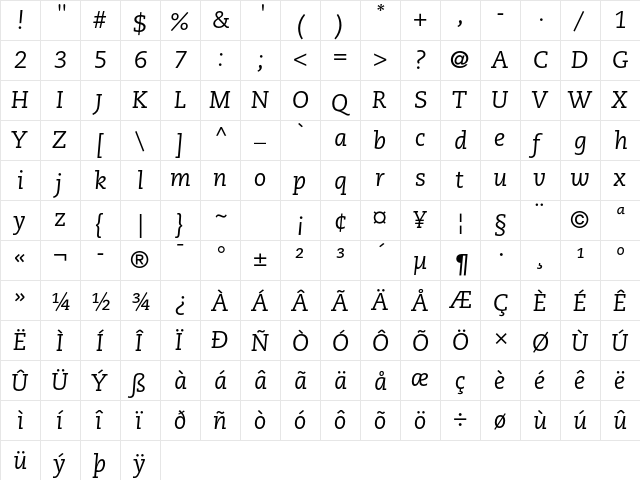
Caecilia LT Std 56 Italic
| Designer | Peter Matthias Noordzij |
Design Context for Caecilia LT Std Typeface
Caecilia LT Std offers clean, dependable letterforms without strong stylistic allegiance, making it a practical choice for designers who need flexibility. The dynamic lean of this cut emphasises speed and emphasis in any layout. The delicate stroke weight brings airiness and refinement to layouts.
Pro Tip: Use Caecilia LT Std for emphasis, pull quotes, and subheadings where its slanted energy can add rhythm to the layout.